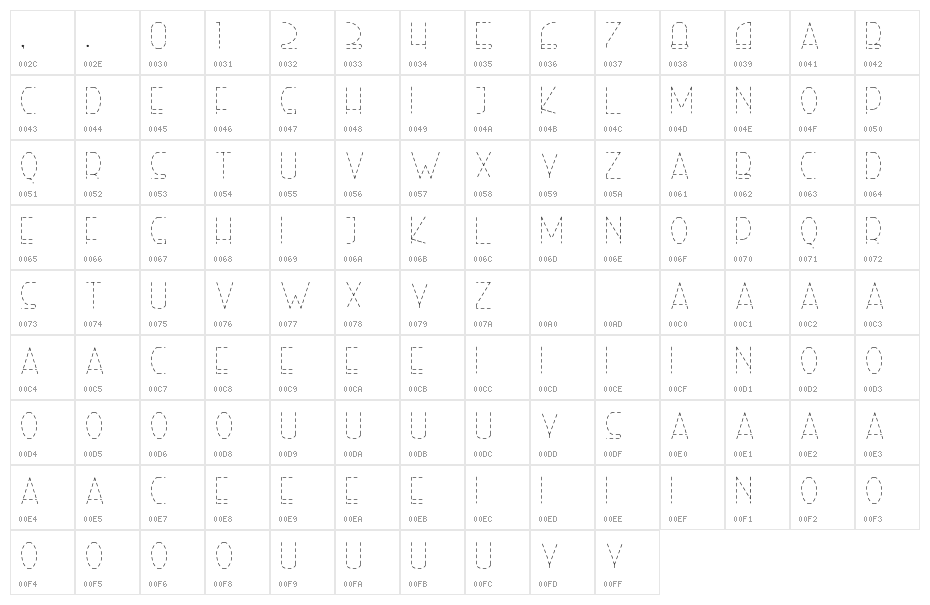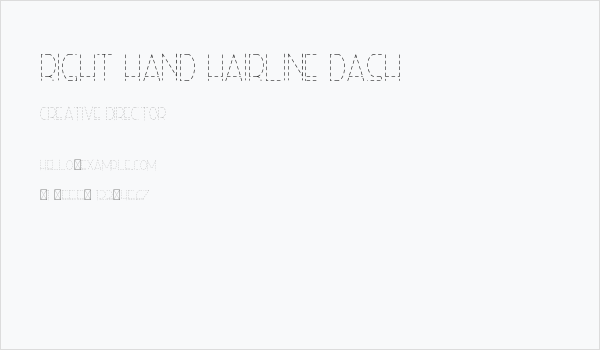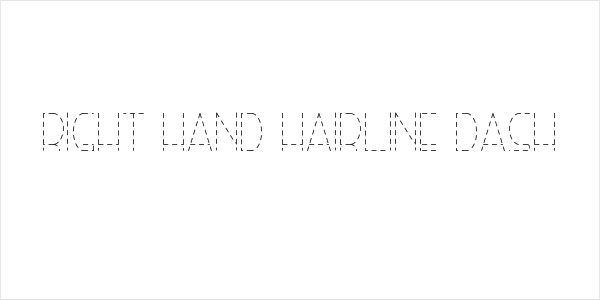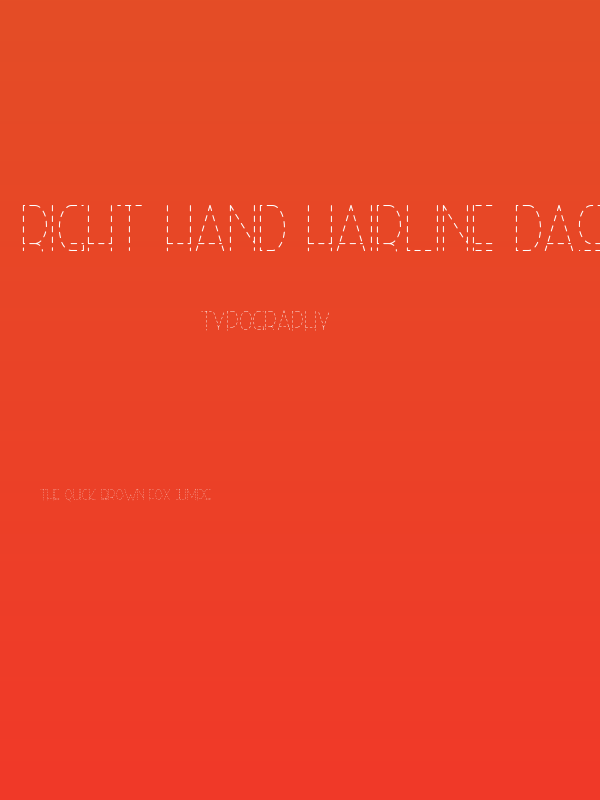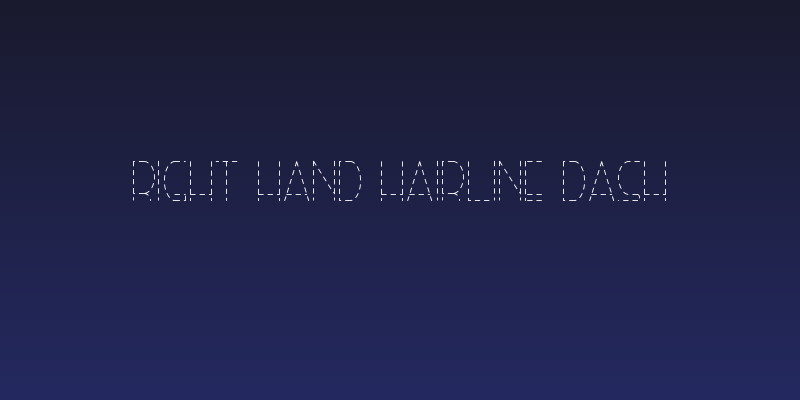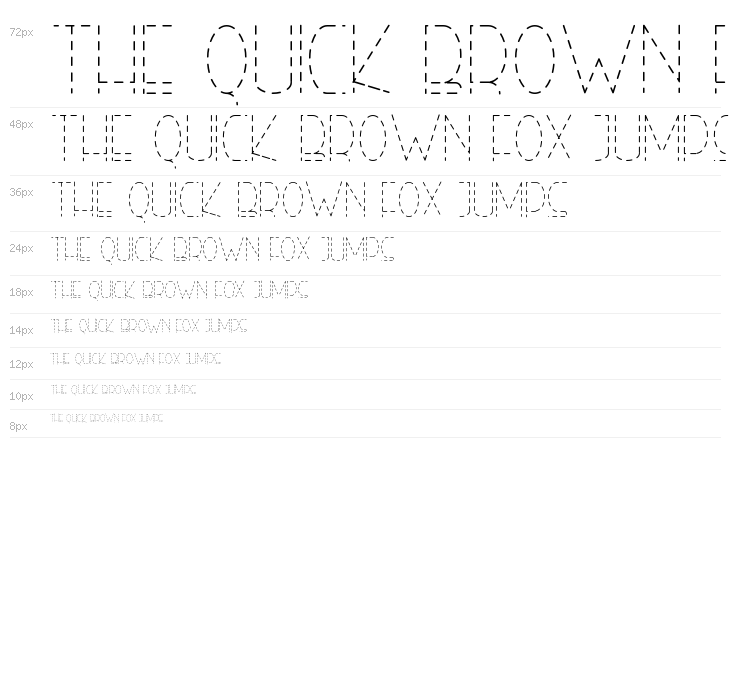
Right Hand Hairline Dash Font
Right Hand Hairline Dash Description
This font features a unique dashed line style, creating a sense of movement and rhythm. Each character is composed of evenly spaced dashes, giving it a modern and technical appearance. The uppercase and lowercase letters maintain a consistent height and width, contributing to a uniform look. The numerals and special characters follow the same dashed pattern, ensuring a cohesive design throughout. This font's distinct style makes it stand out, ideal for projects that require a contemporary and innovative touch.
| Use Case | Logos, Posters, Digital Art |
| Proposed Projects | Ideal for digital designs, tech-themed projects, modern art pieces, and creative branding. |